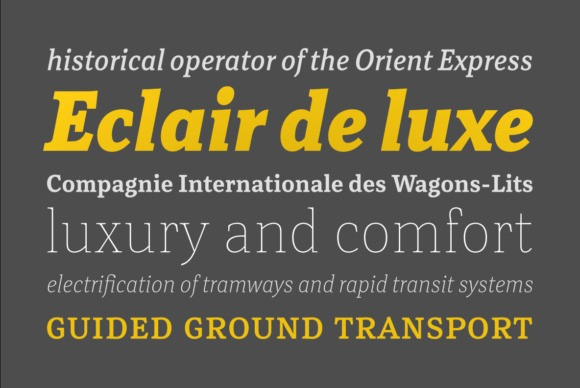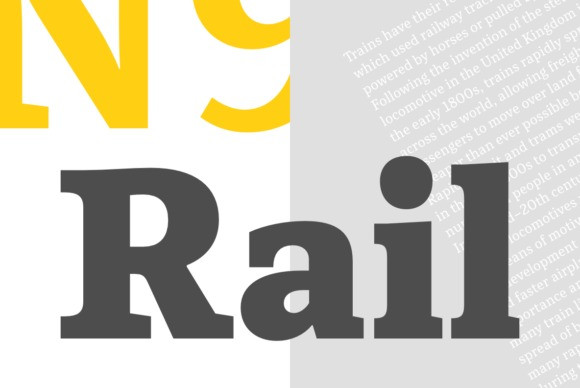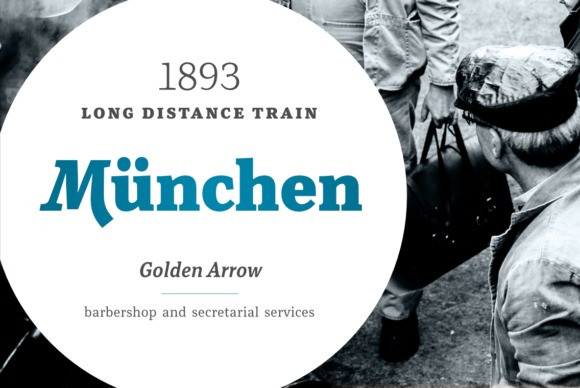
Rail Font
Rail is a cool, adaptable and bold slab serif font. Whatever the topic, this font will be a wonderful asset to your font library, as it has the potential to enhance any creation.